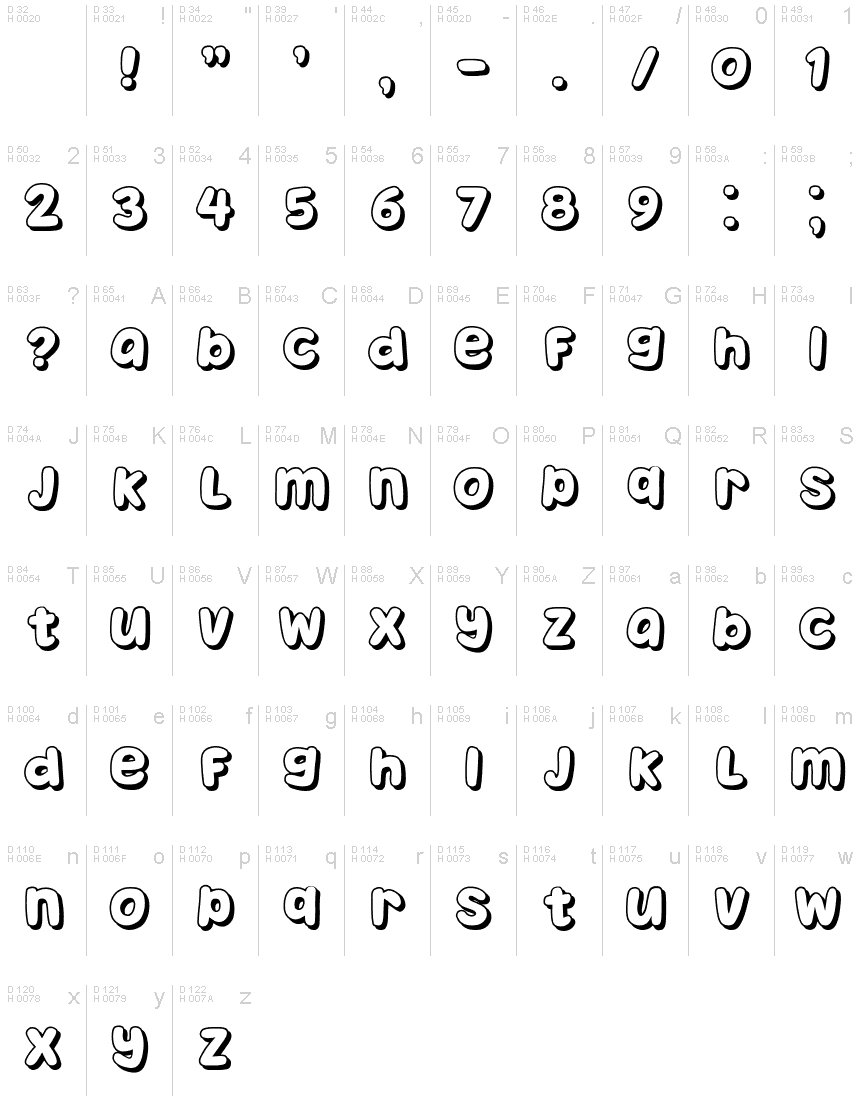
Takeover School Hollow Regular
Takeover School Hollow font is a 3d comic typeface designed by Vladimir Nikolic.
"Takeover" comes in Regular, Shadow, School, School Hollow, and College variants!